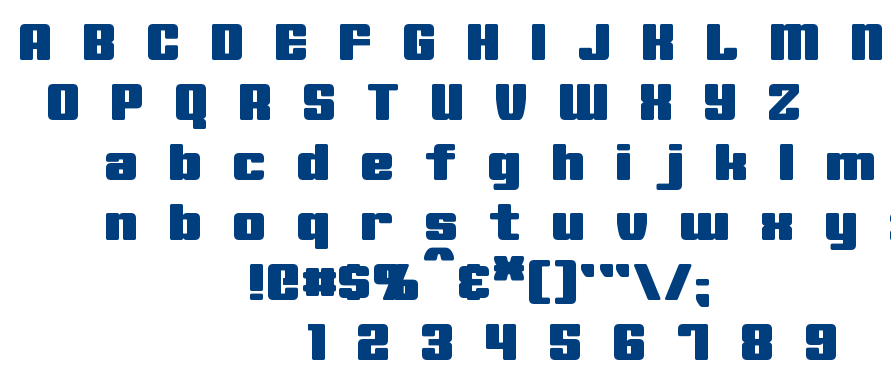
Based on the logos used for Shout’s releases of Transformers: Headmasters, Masterforce, and Victory. Includes full punctuation, accented characters, and Euro.